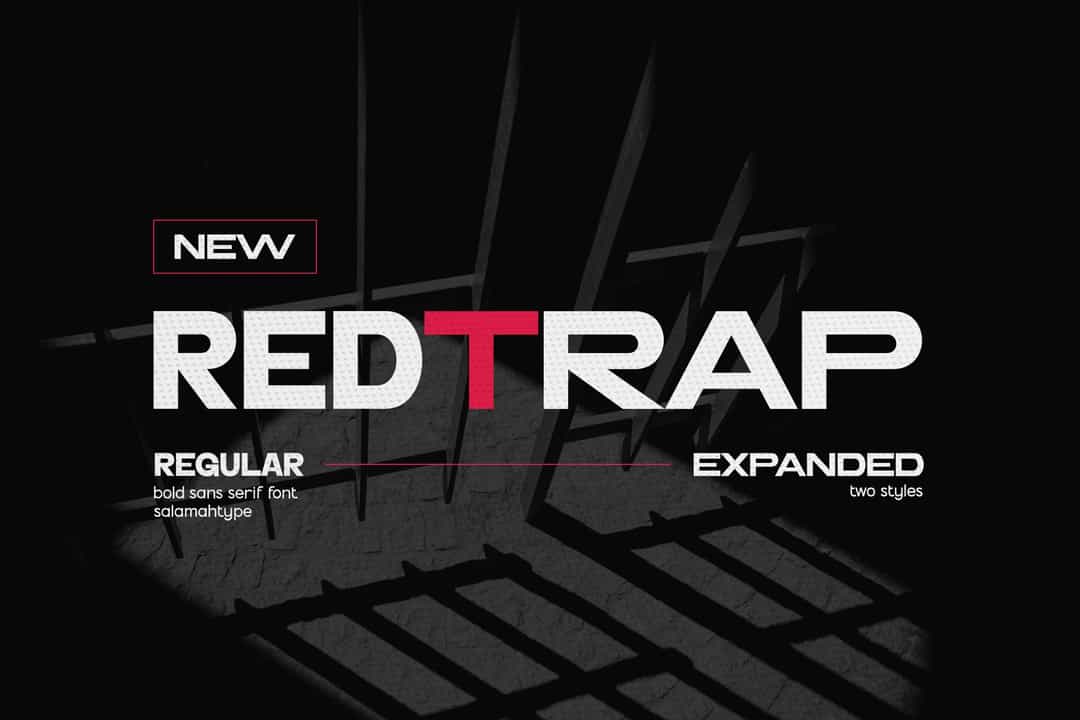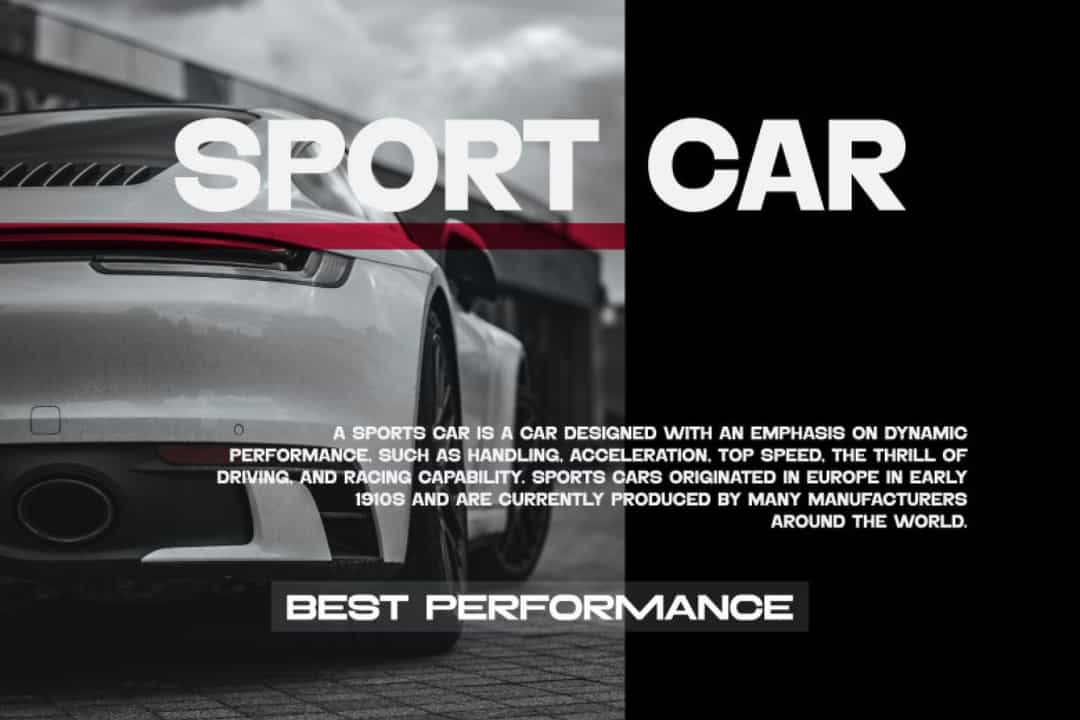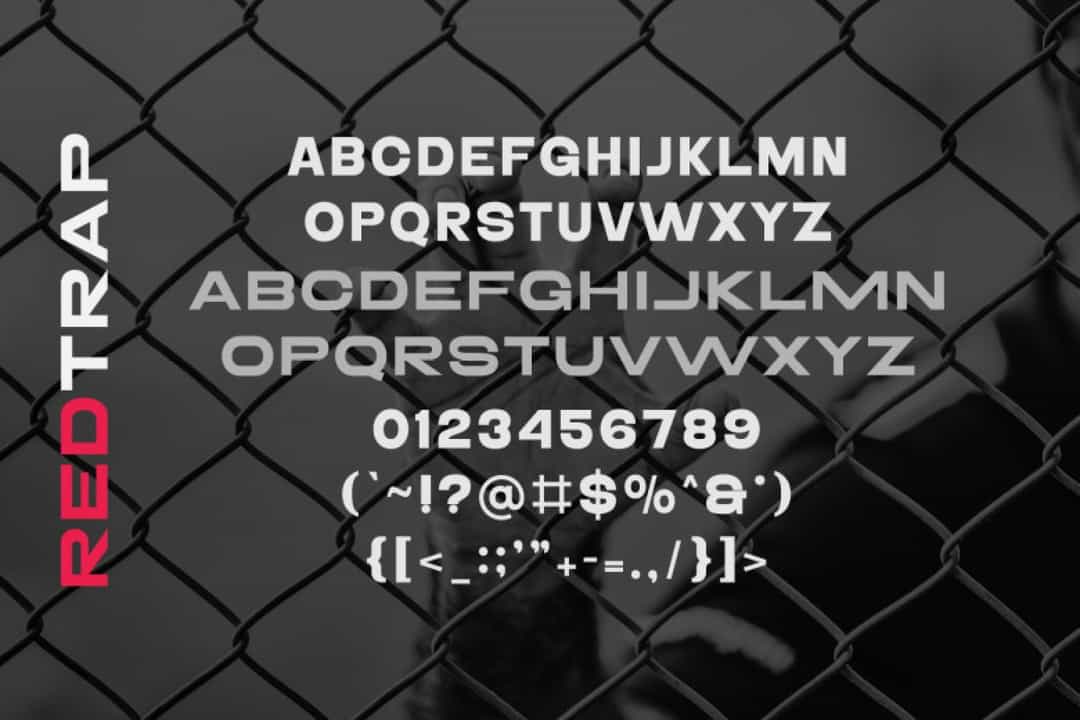
“REDTRAP”, our large and bold sans serif font designed to help make your logo pop with style and confidence, is here! REDTRAP features clean lines and broad characters which exude modernity and strength – the ideal combination for striking branding.